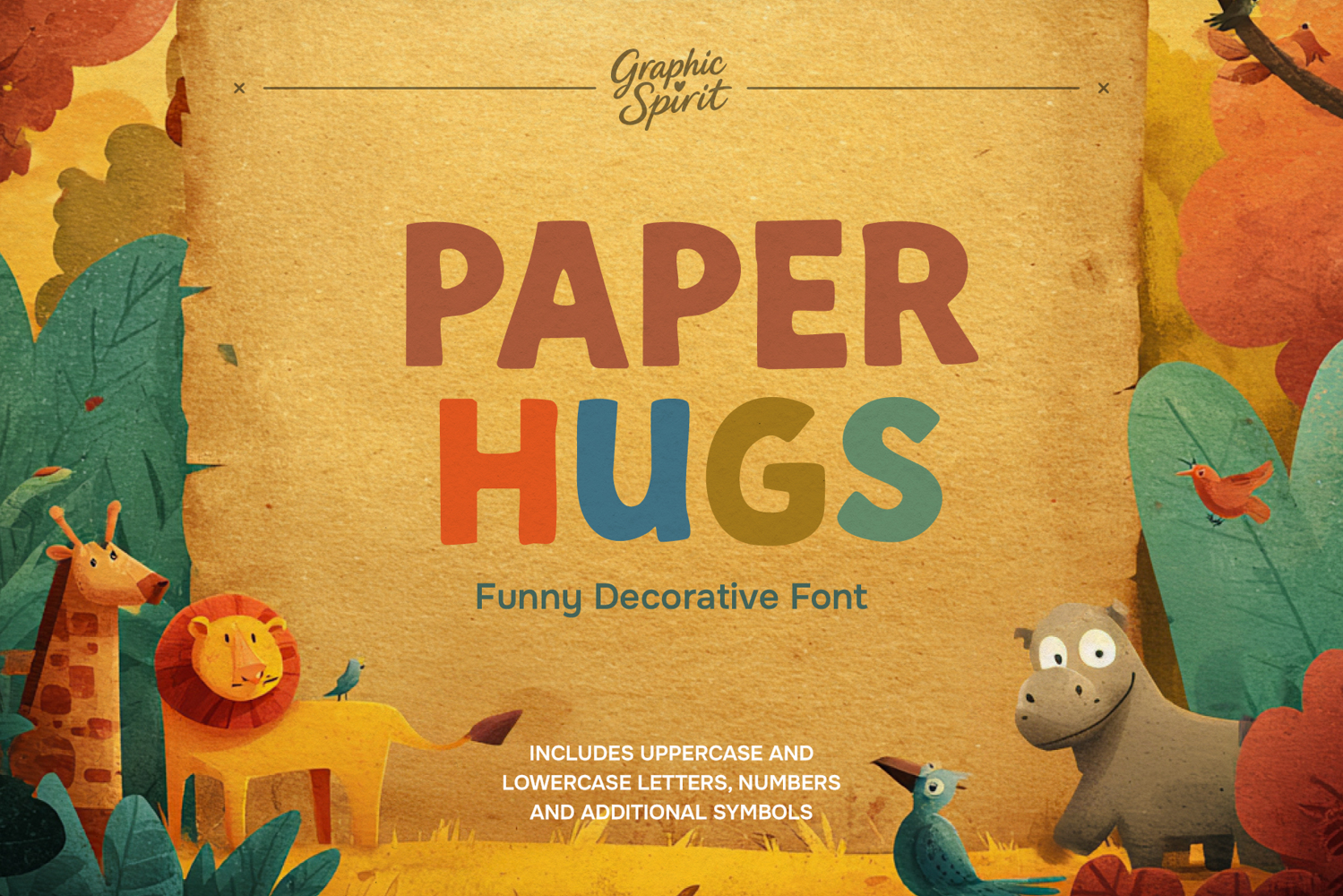
Paper Hugs Funny Decorative Font
🤗 Wrap your projects in a warm and witty embrace with our decorative font, Paper Hugs! This playful and friendly font with charming characters is perfect for adding a touch of humor and heart to your creations. Download this unique font now to transform your DIY projects.
🎨 Perfect for creating memorable greeting cards, striking wall murals, unique logos, and inspiring social media graphics. Share joy and laughter with every letter! ✂️